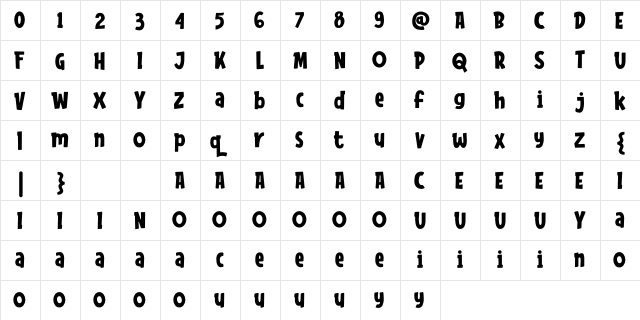
Funtasia Regular
Design Context for Funtasia Typeface
Funtasia trades formality for fun, with bouncy, characterful letterforms that bring warmth and energy to any project.
Font Pairing: Pairs well with a rounded or humanist sans for body copy, maintaining the friendly tone without relying on Funtasia to carry extended reading.
Pro Tip: Avoid using Funtasia for long passages of text — it works best for headlines, labels, and short calls to action.